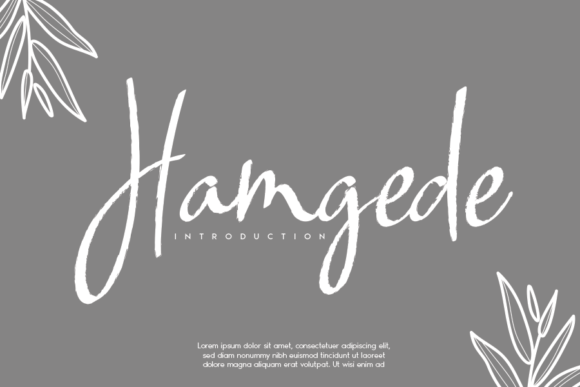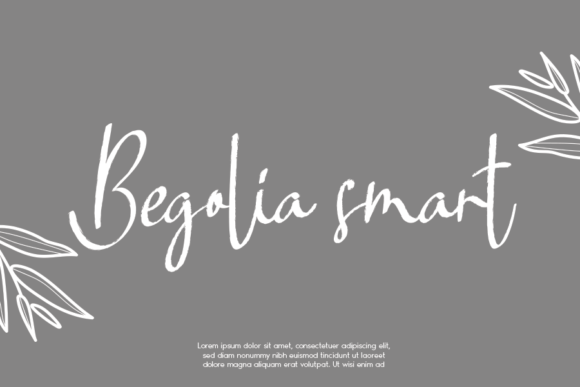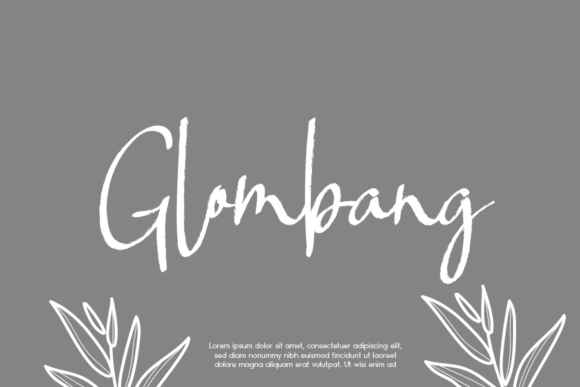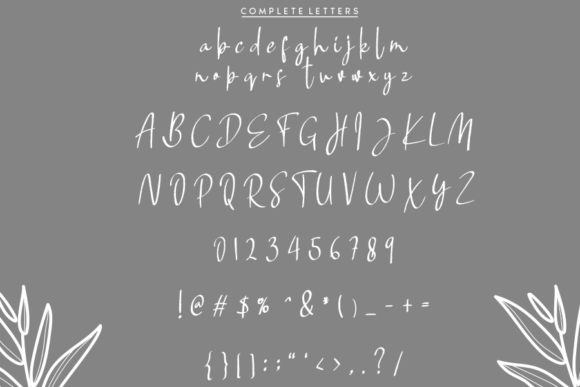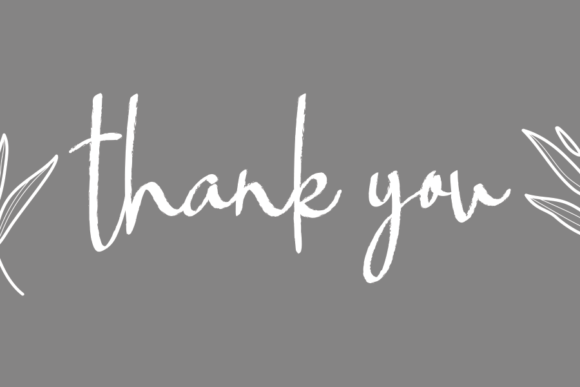
Hamgede Font
About Hamgede Font
Hamgede is a delicate and unique handwritten font. Its distinct style makes this font fit for a wide pool of contexts. Add it to your most favorite projects, and notice how Hamgede makes them come alive!